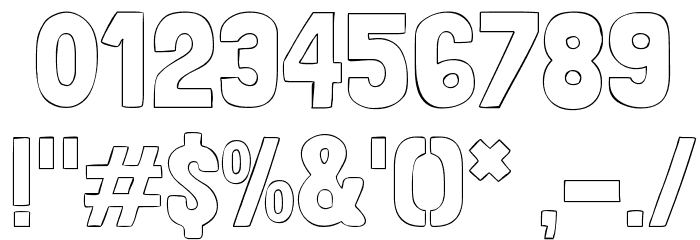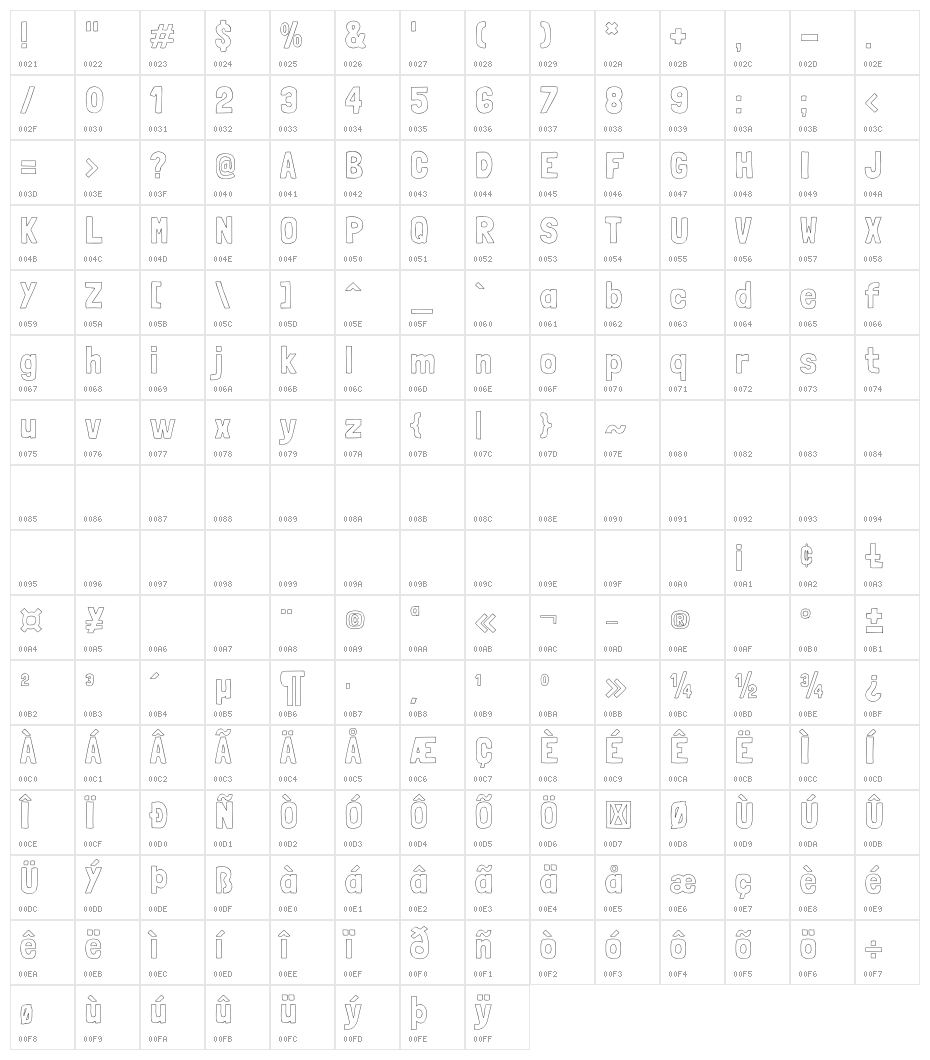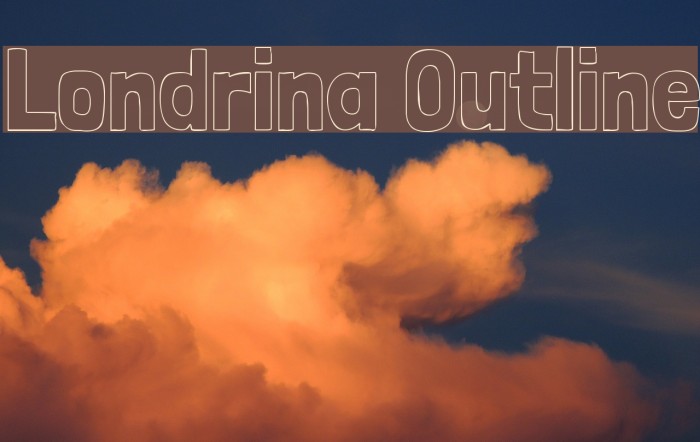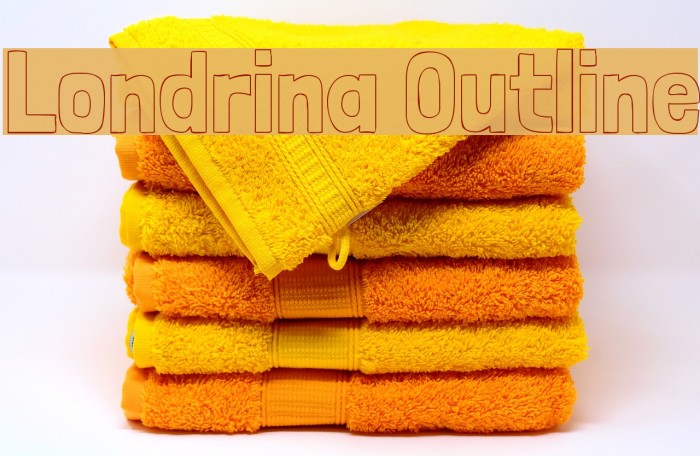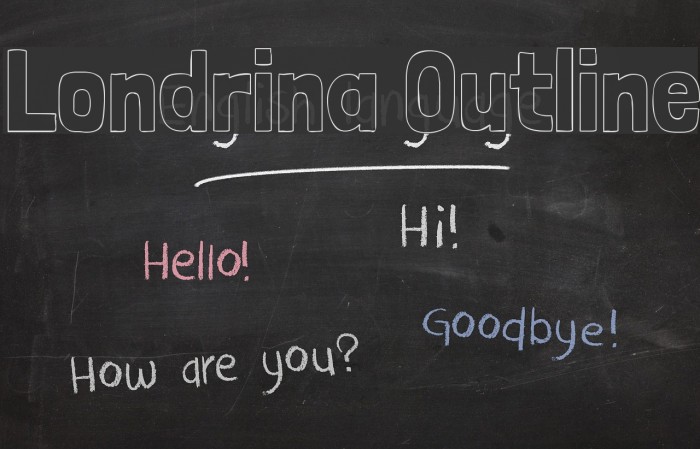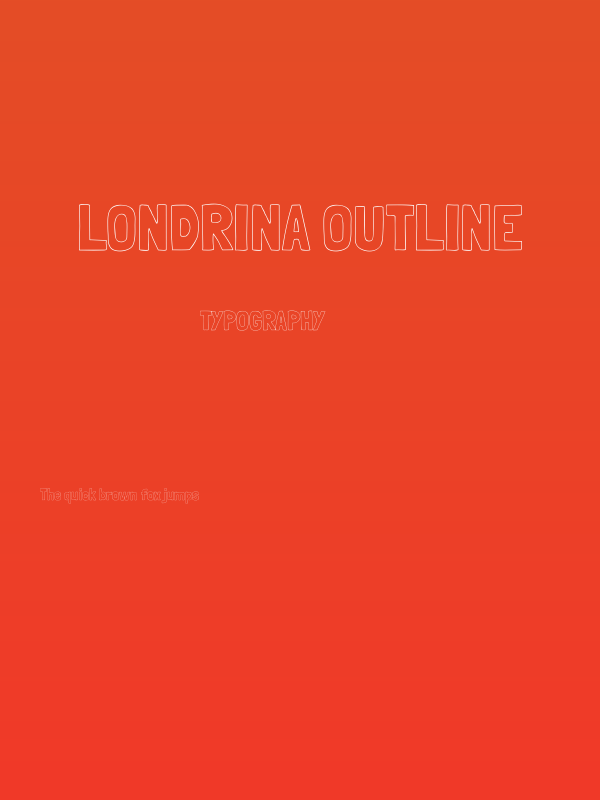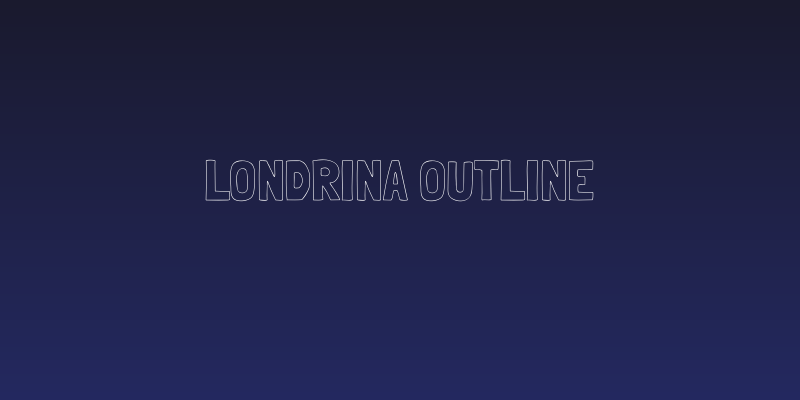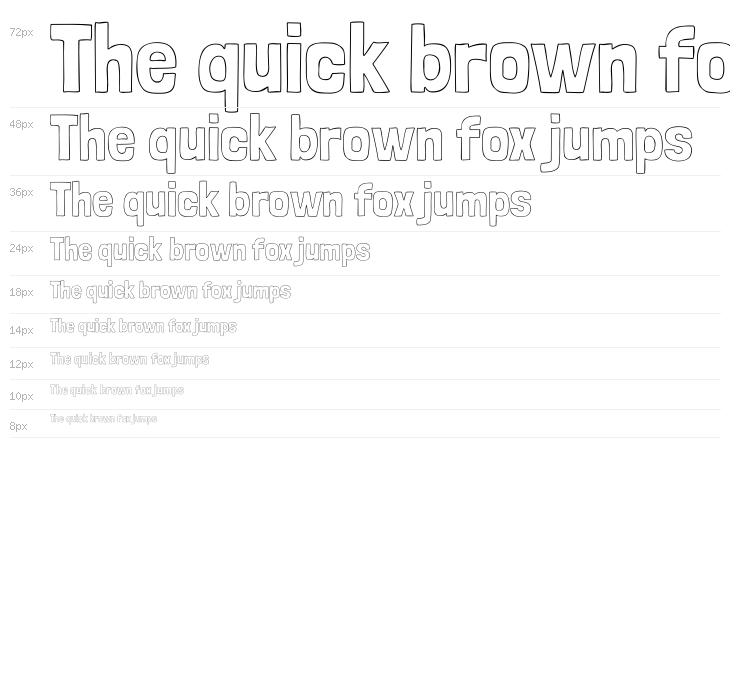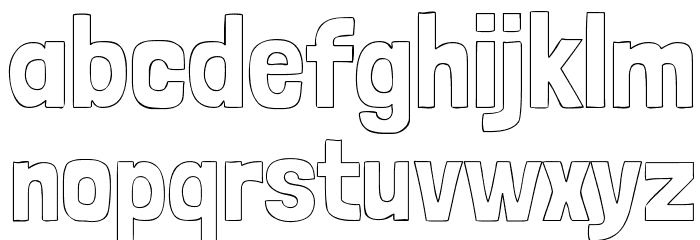
Londrina Outline Font
Londrina Outline Description
This font features a unique outline style that gives it a bold and eye-catching appearance. The characters are designed with a consistent stroke width, creating a uniform look across both uppercase and lowercase letters. The geometric shapes of the letters provide a modern and clean aesthetic, making it suitable for various design applications. The numerals and special characters maintain the same outline style, ensuring a cohesive look throughout. This font is particularly effective in designs where a strong visual impact is desired, such as in headlines or logos.
| Proposed Projects | Ideal for headlines, posters, logos, and any design requiring a bold, modern look. |